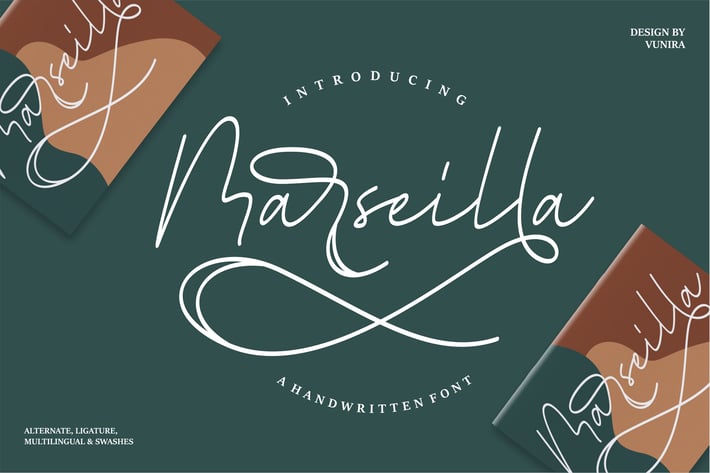
Marseilla | A Handwritten Font
Marseilla | A Handwritten Font with a calligraphy style, So beautiful on invitation like greeting cards, branding materials, business cards, quotes, posters, and more!